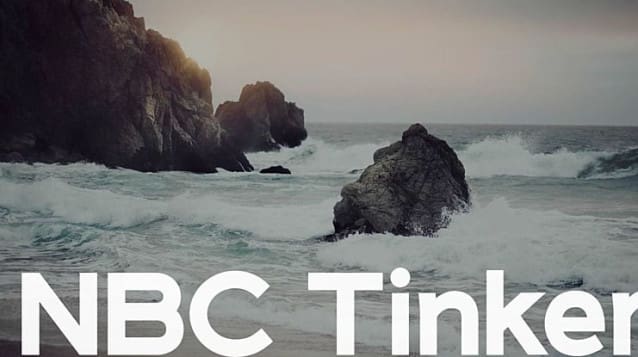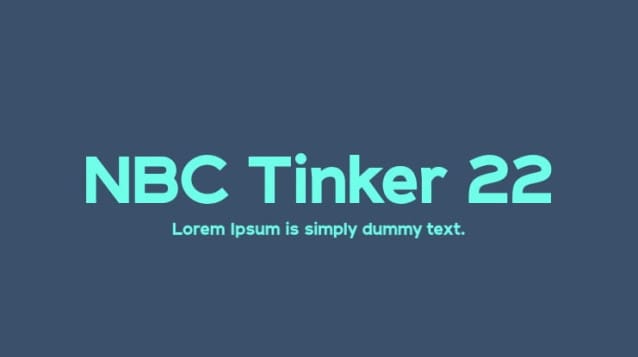
NBC Tinker 22 Font, is a sans serif stunning when combined or separately. This sans serif font style is legible and stunningly designed.
NBC Tinker 22 Font